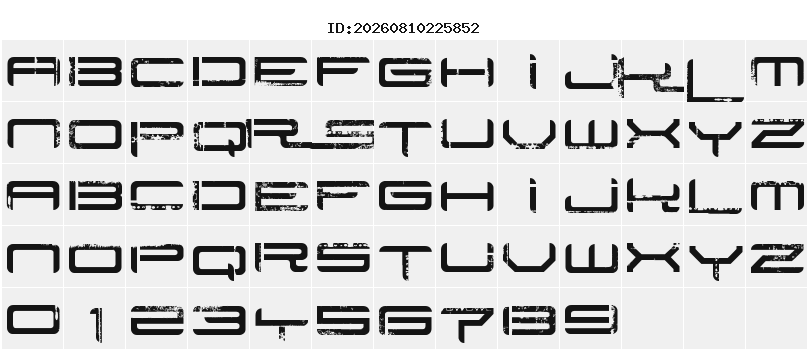
• Font Name: Rysky Lines
Rysky Lines.ttf is a modern, elegant sans-serif font designed for ultimate readability and visual harmony. Perfect for branding, headlines, web design, and print materials.